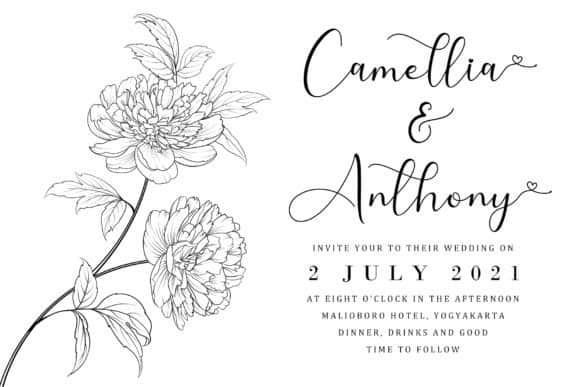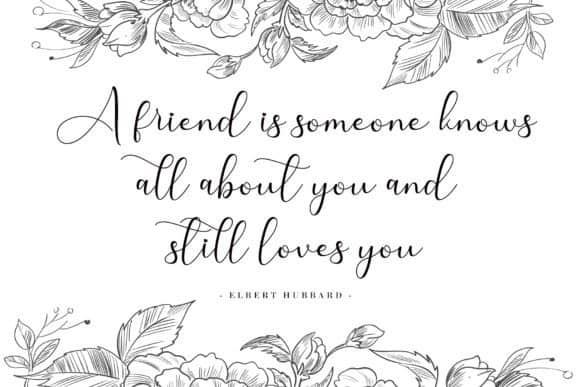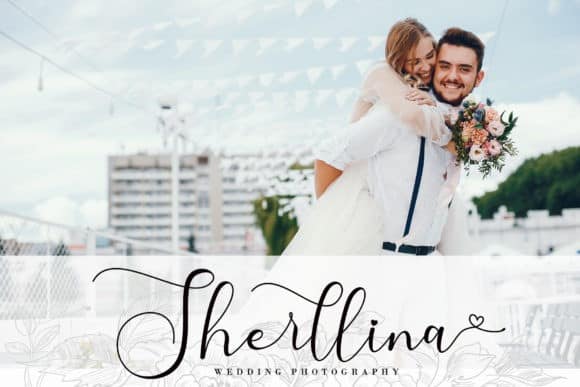
Sarilla Calligraphy Font
Sarilla Calligraphy Font is a Beautiful Calligraphy script typeface carefully created with a touch of romantic. Made from font designer named AEN Creative Studio. It has beautiful and well balanced characters and as a result, it matches a wide pool of designs. This font is PUA encoded which means you can access all of the glyphs and swashes with ease!